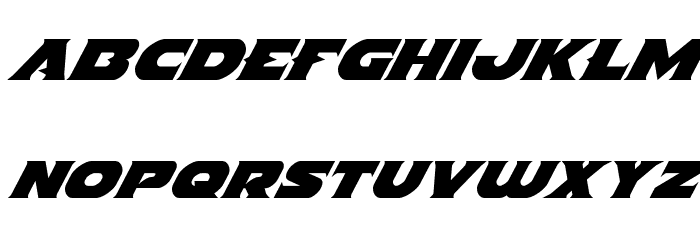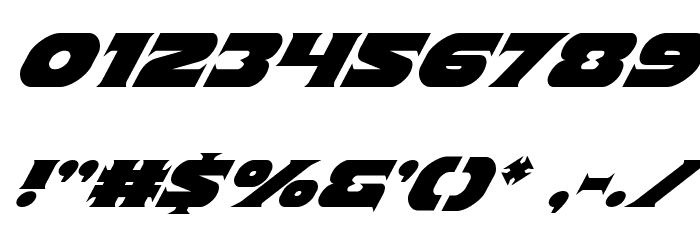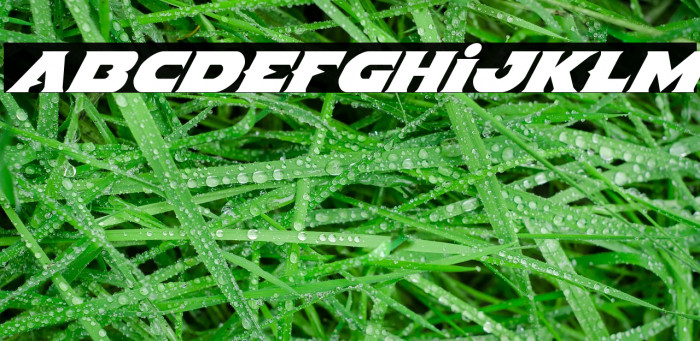
Indigo Demon Super-Italic Font
This font features a bold and dynamic style with a strong italic slant, giving it a sense of motion and energy. The characters are thick and robust, with sharp angles and a futuristic appearance. The uppercase and lowercase letters maintain a consistent style, while the numbers and special characters are designed to match the bold and aggressive aesthetic. The font's unique design makes it stand out, ideal for projects that require a modern and edgy look.
A bold, italicized font with a dynamic, futuristic style.
- Proposed Projects: Ideal for sports branding, video game titles, action movie posters, and any project needing a bold, energetic typeface.